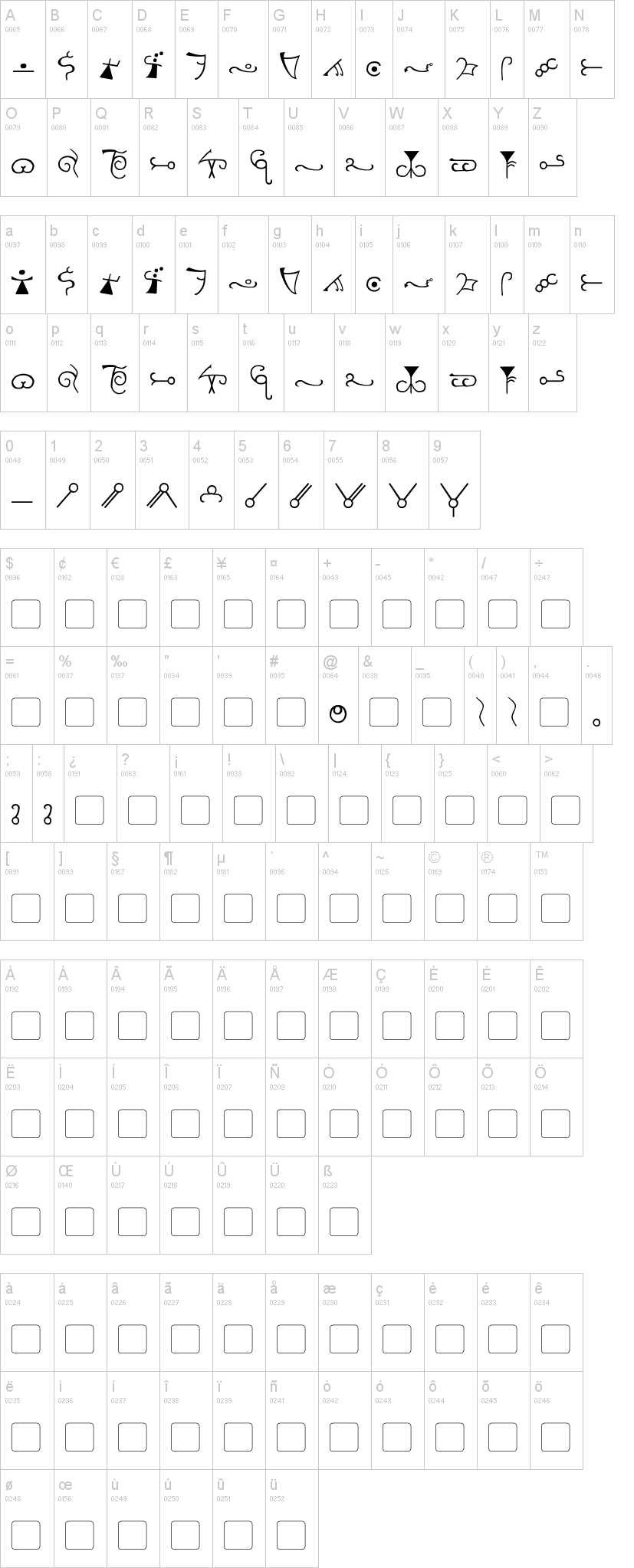
Note of the authorThis fanciful runic font is based on the Elvish script found within TSR's "2nd Edition: Dungeons and Dragons" Forgotten Realms Elvish script. Includes all canon characters.